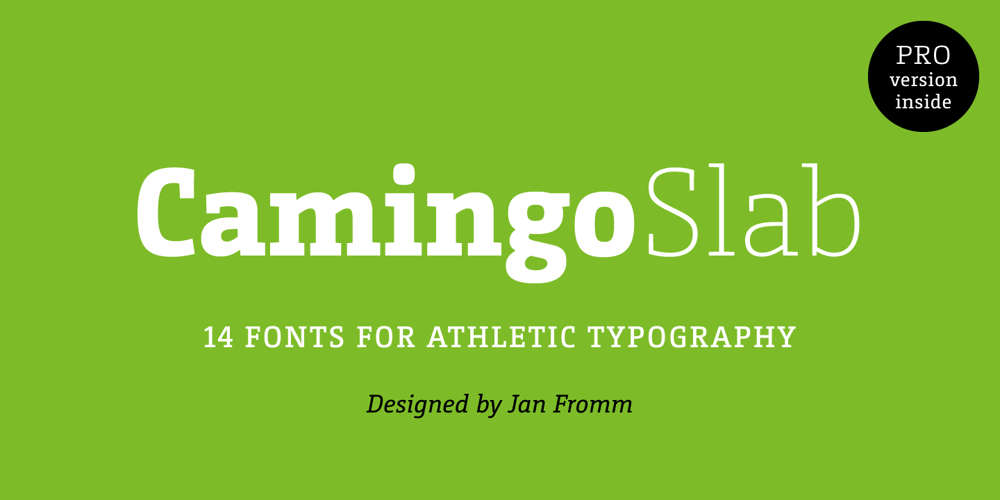
CamingoSlab
CamingoSlab font
CamingoSlab Font Family was designed by Jan Fromm and published by Jan Fromm. CamingoSlab contains 28 styles and family package options. A sturdy and solid presence, CamingoSlab is defined by its heavy serifs, low stroke contrast and elliptic curves. Yet it retains a light touch, and feels vivid and friendly, thanks to the humanistic tone that derives more from handwriting than from strict construction. Special attention has been paid to compatibility with the other members of the Camingo series — With their consistent line heights, an equal grey value and the same formal language it can be seamlessly combined with CamingoDos and CamingoMono. CamingoSlab comes with a Pro version that contains small caps, ligatures, 10 different figure sets, stylistic alternates and two sets of arrows.